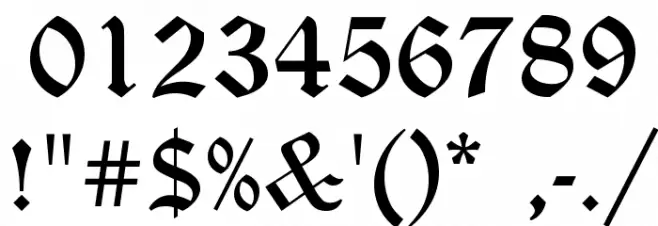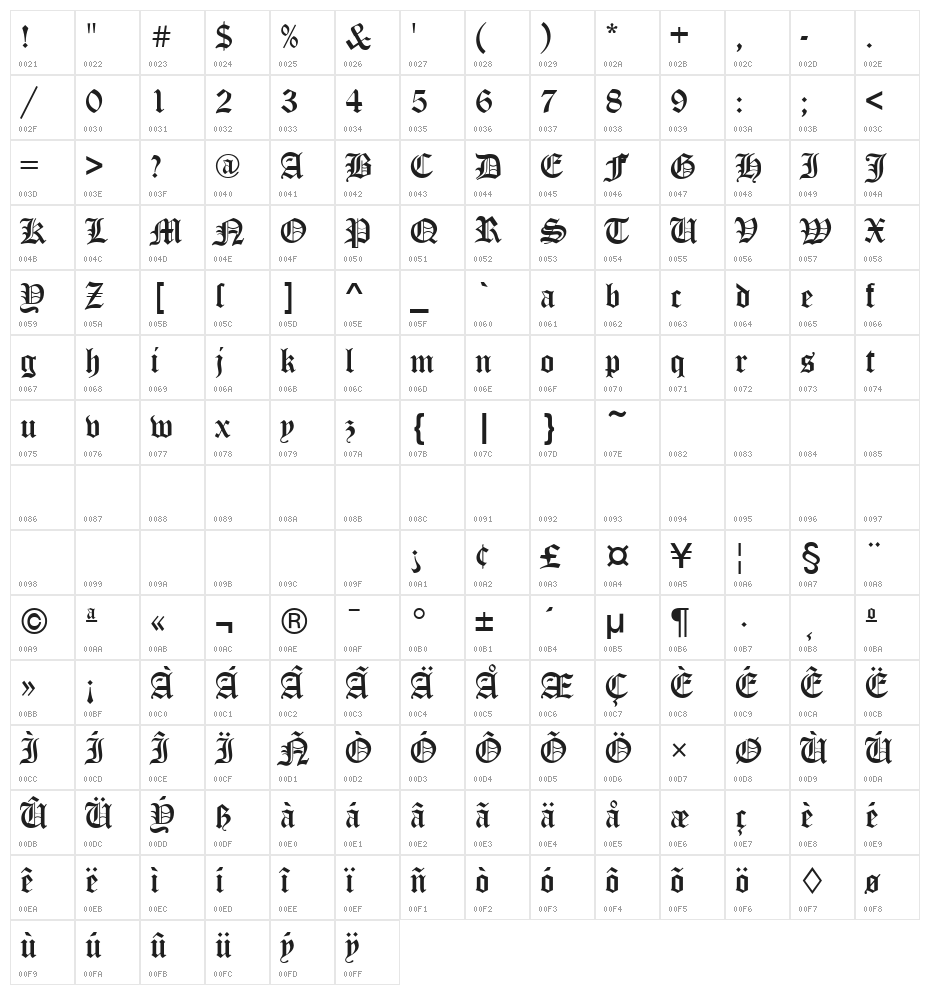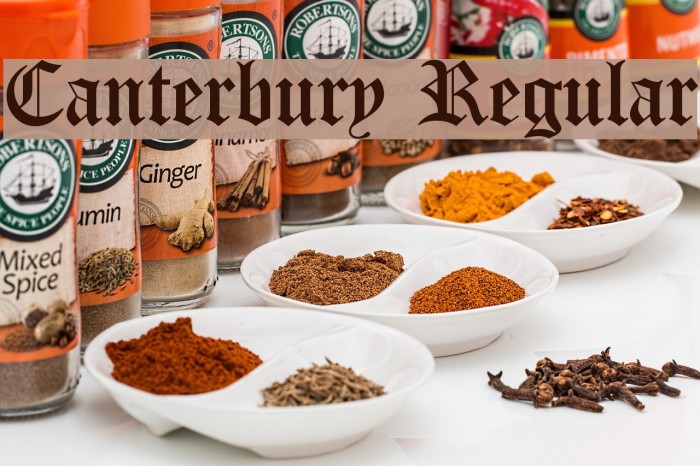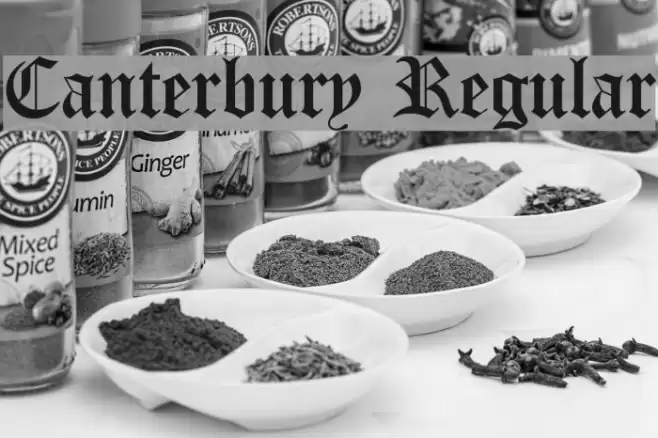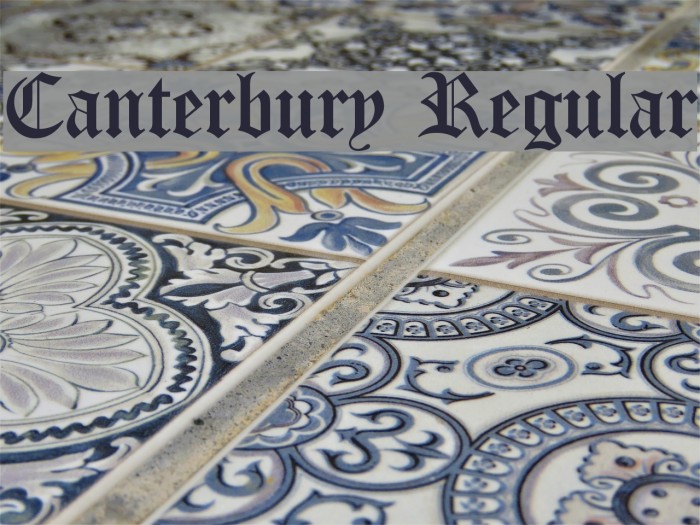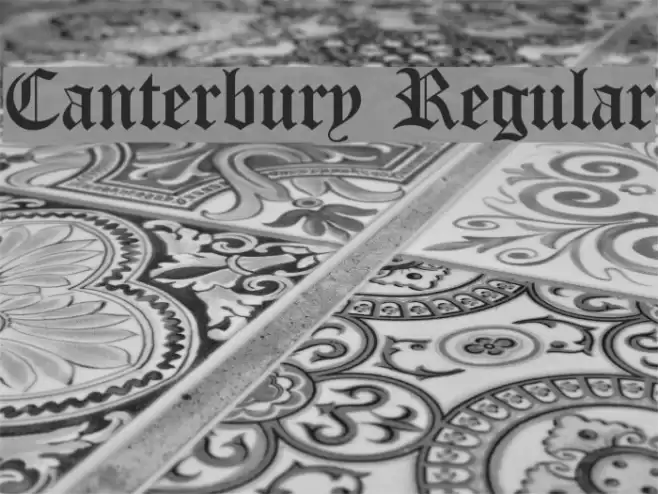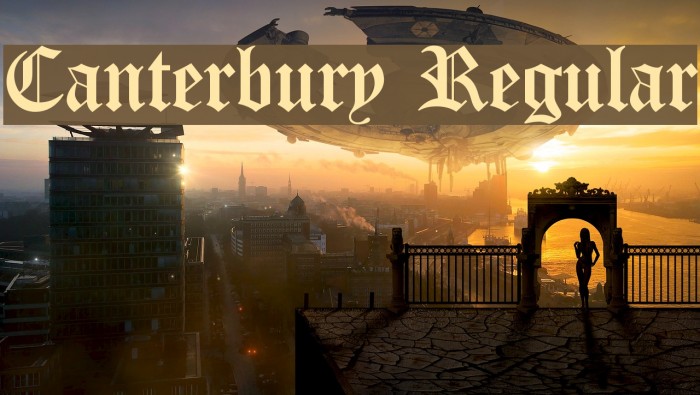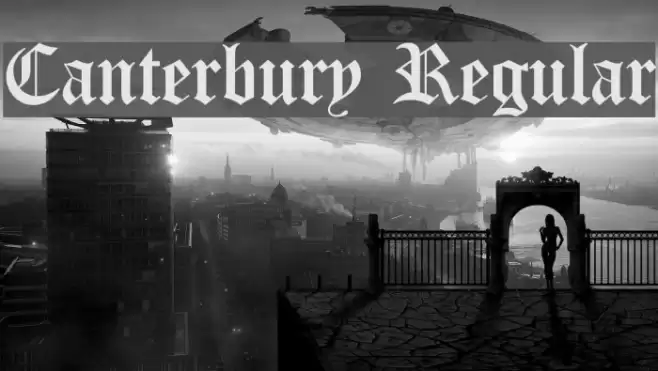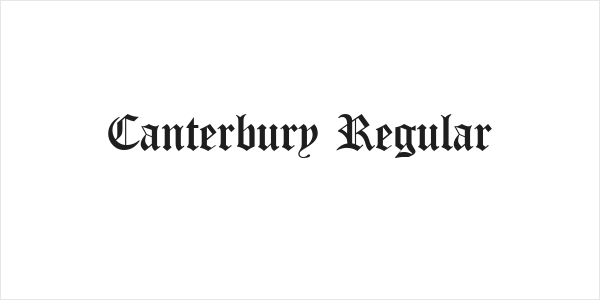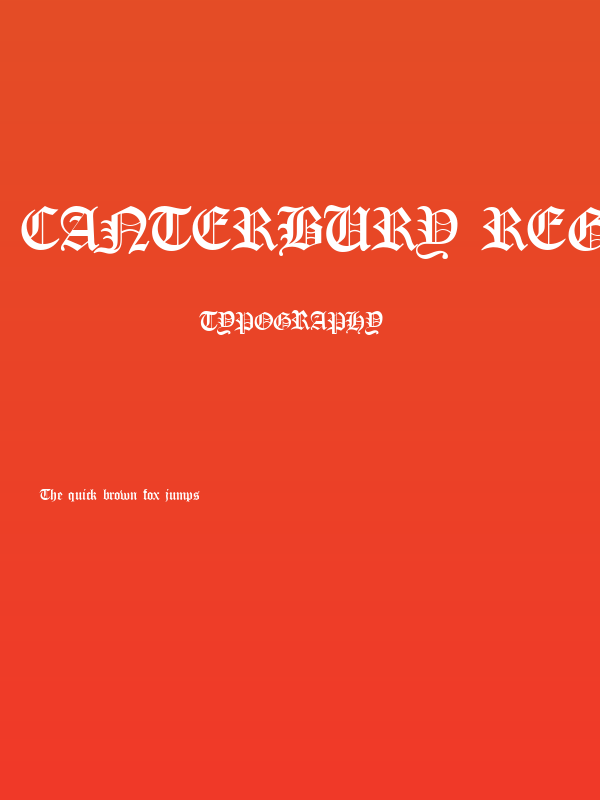
Canterbury Regular Font
Canterbury Regular Description
This font embodies the traditional elegance and intricate detailing of medieval script. It features ornate, sharp serifs and a distinctively bold presence, reminiscent of Gothic calligraphy. The uppercase letters are particularly elaborate, with flourishes that enhance their decorative appeal. The lowercase letters maintain a consistent style, offering a harmonious balance between readability and artistic flair. Numbers and special characters are crafted with the same attention to detail, making them suitable for a variety of design contexts. The overall impression is one of historical richness, making it ideal for projects that require a touch of classic sophistication.
Proposed ProjectsIdeal for historical documents, wedding invitations, book covers, and branding that requires a classic, sophisticated touch.